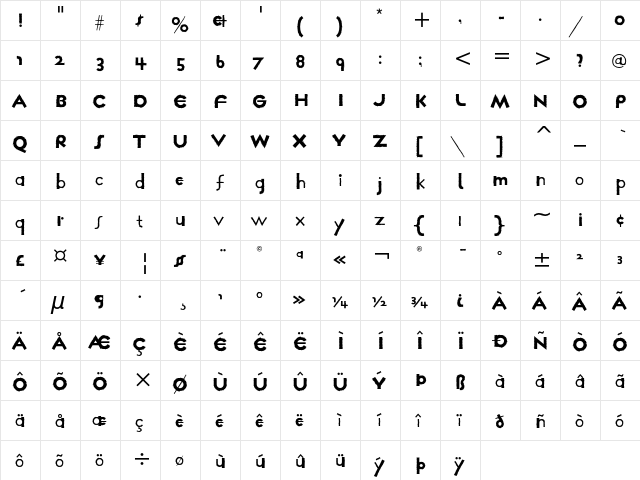
FarmhausNotSoITC Regular
Design Context for FarmhausNotSoITC Typeface
FarmhausNotSoITC offers clean, dependable letterforms without strong stylistic allegiance, making it a practical choice for designers who need flexibility.